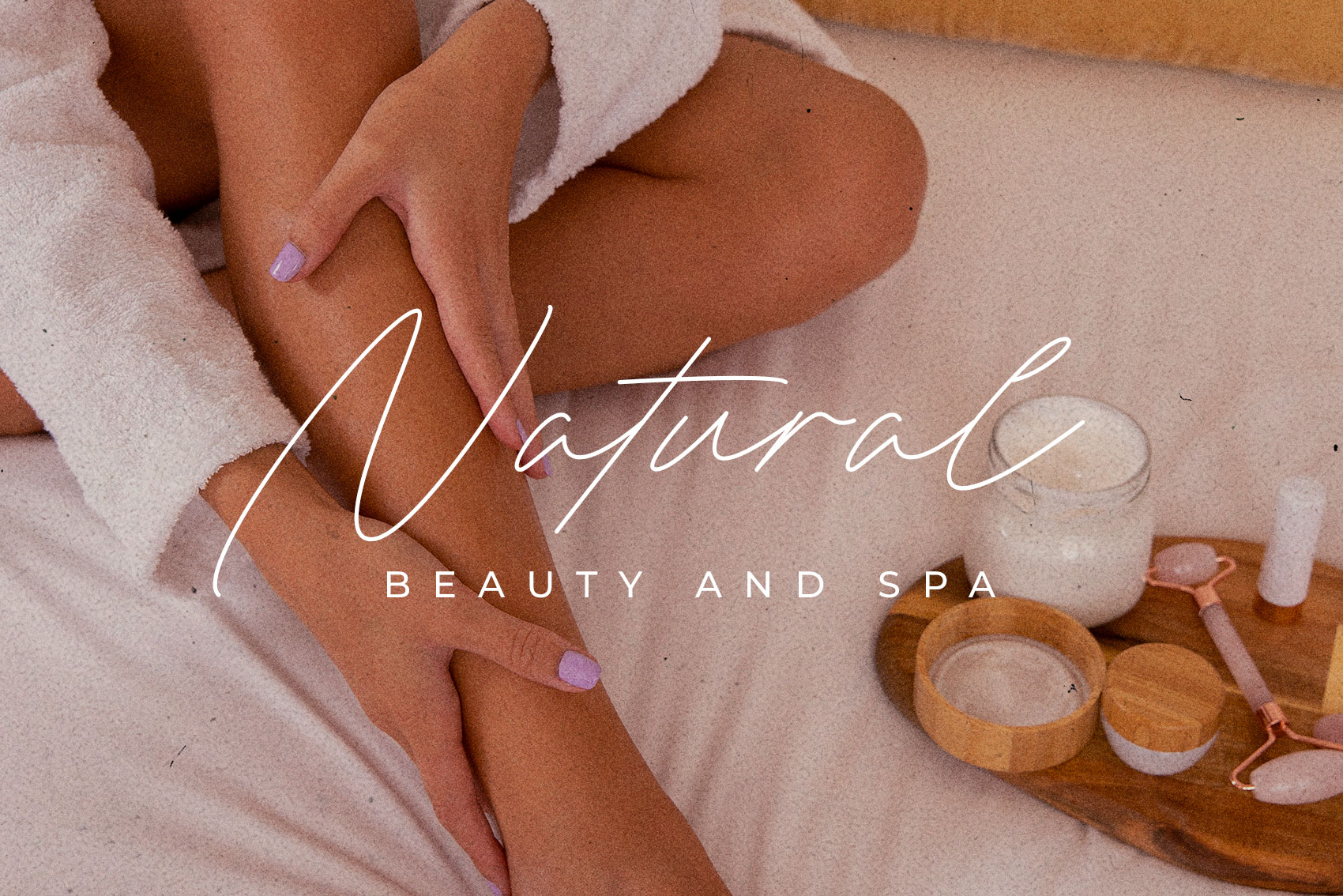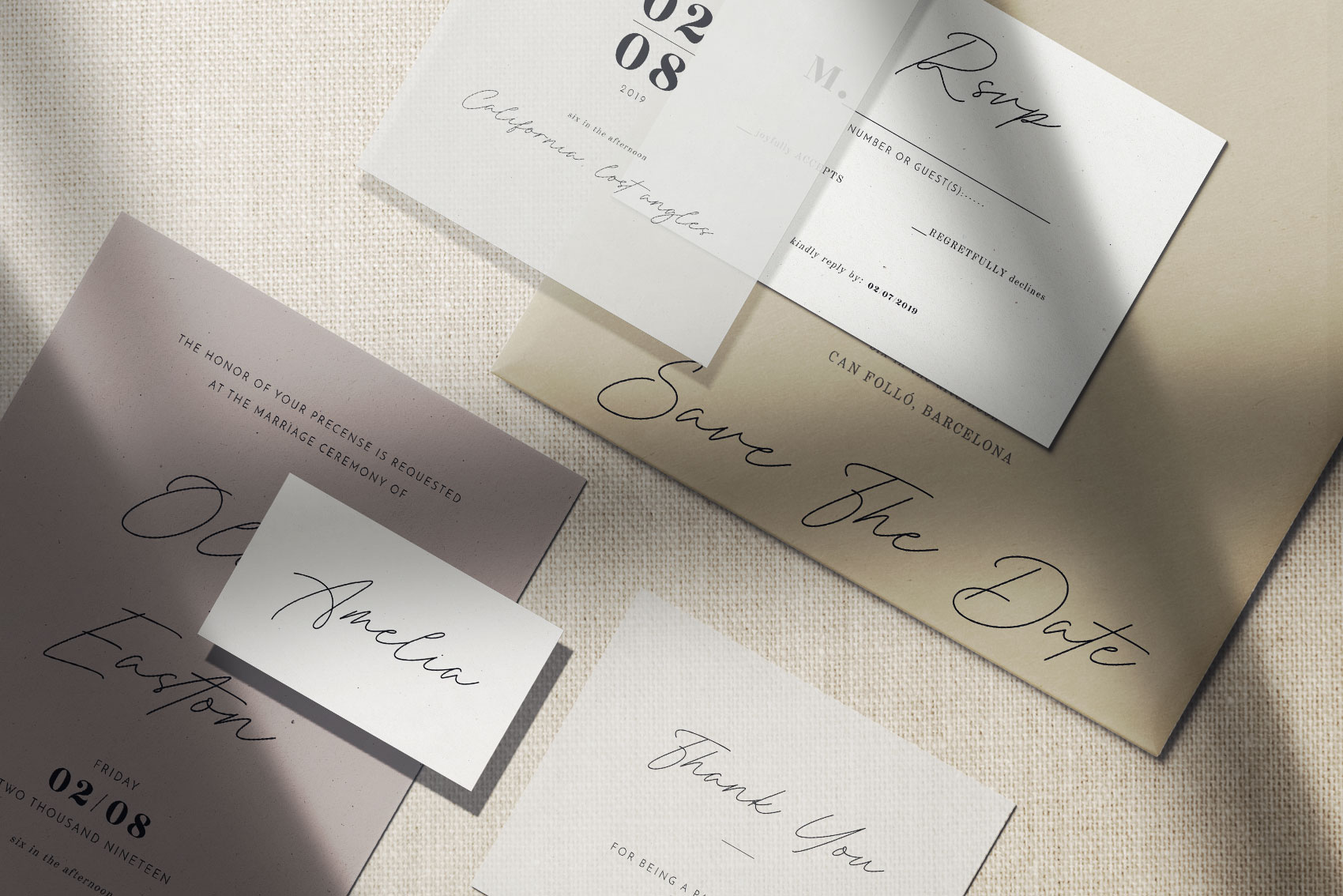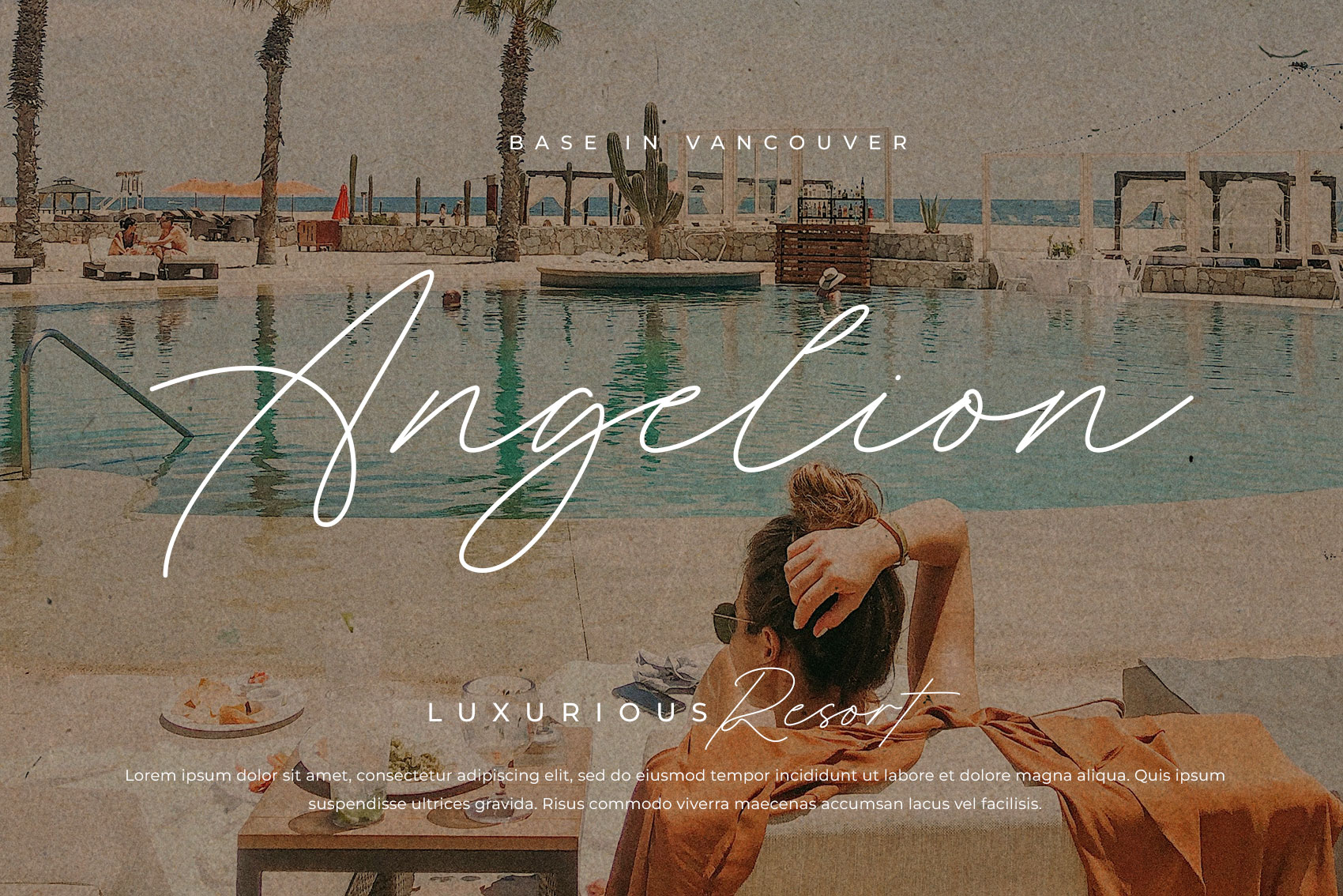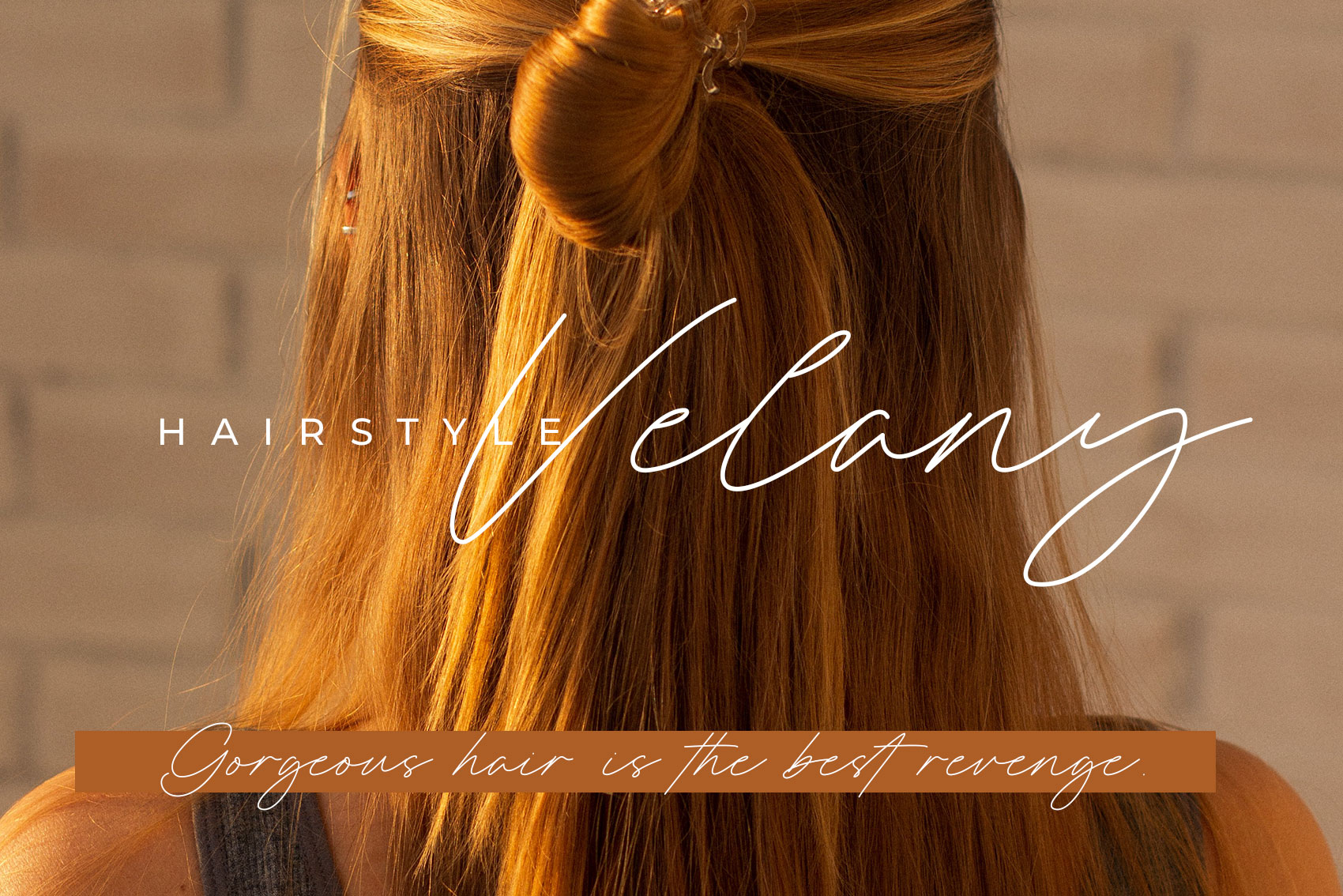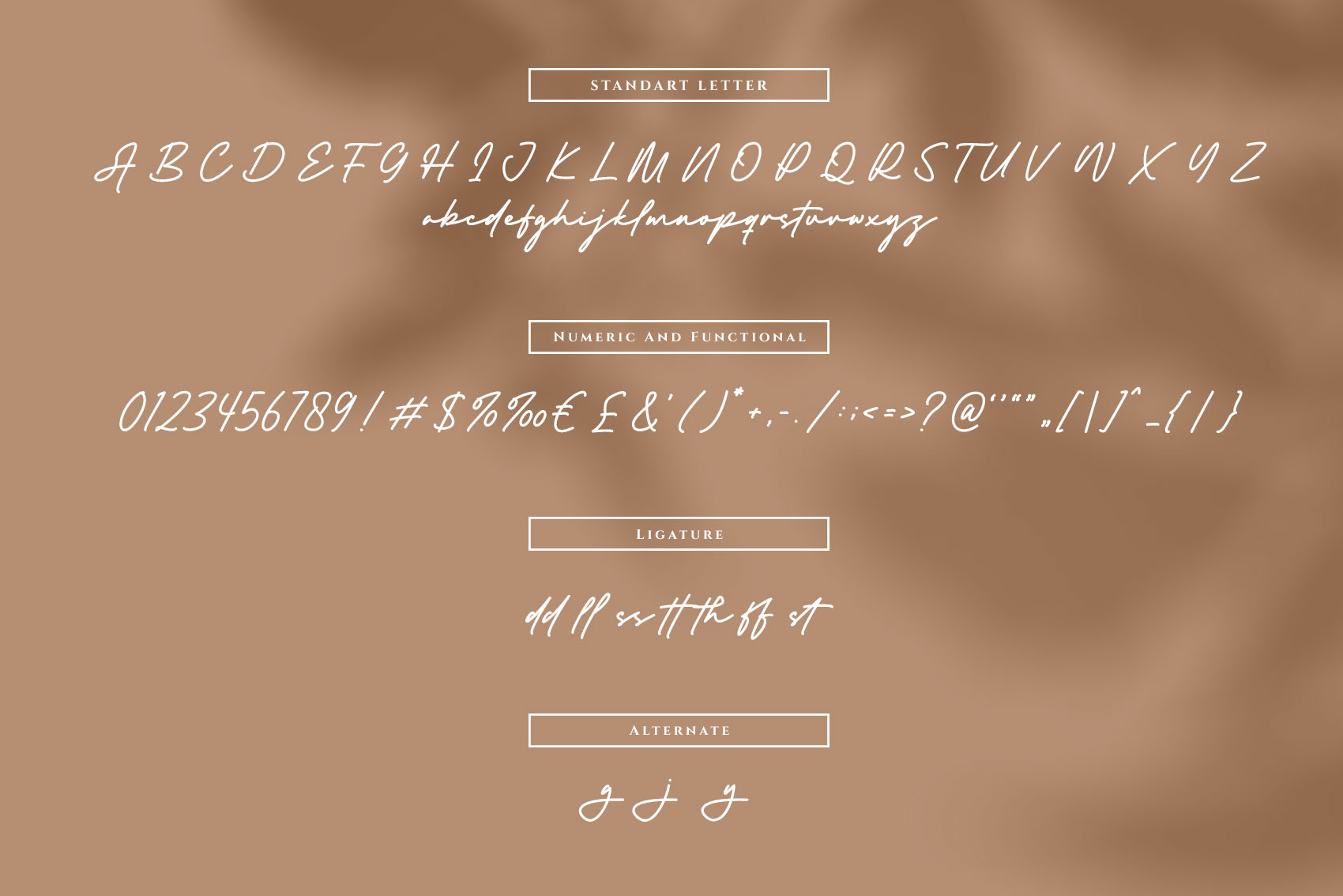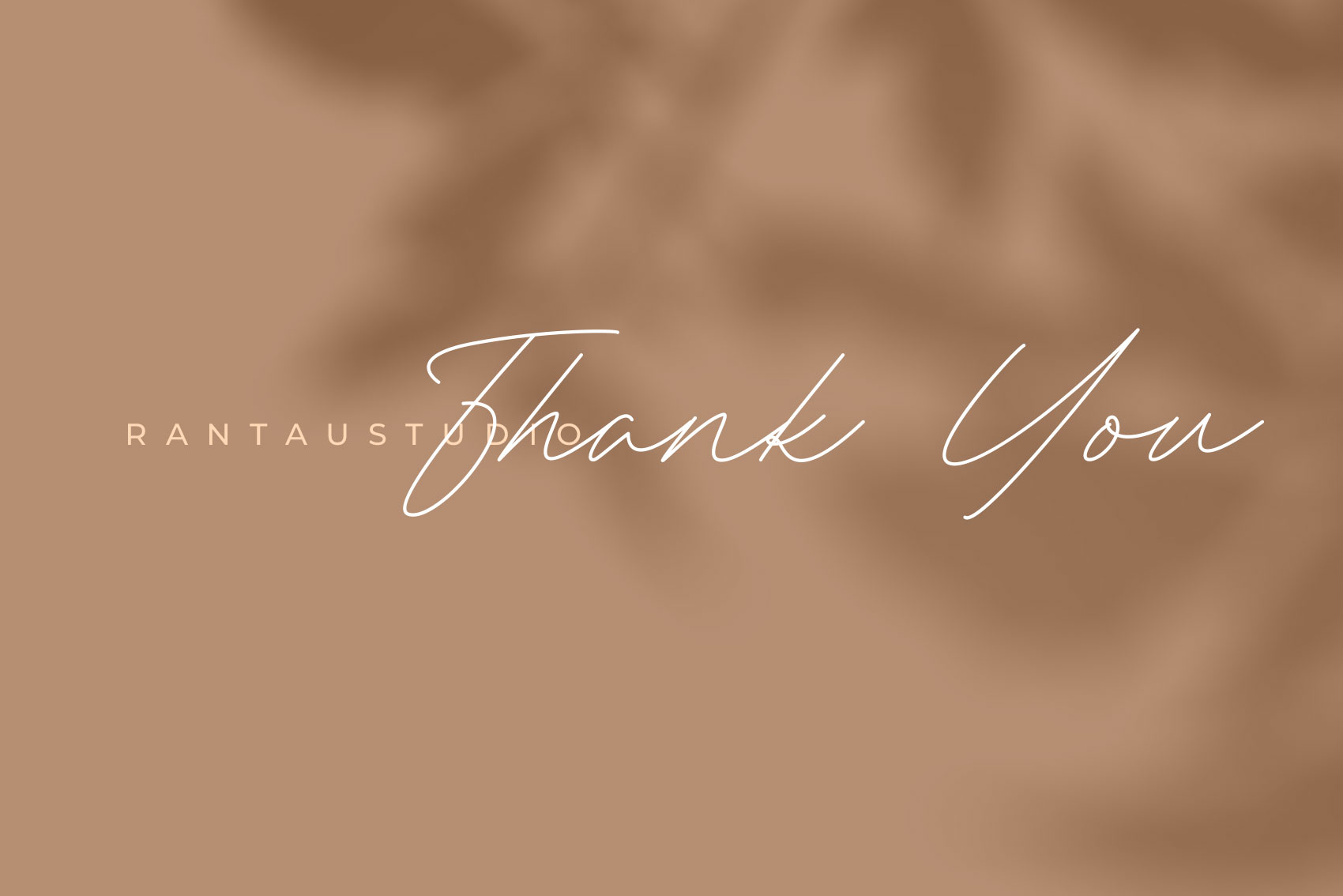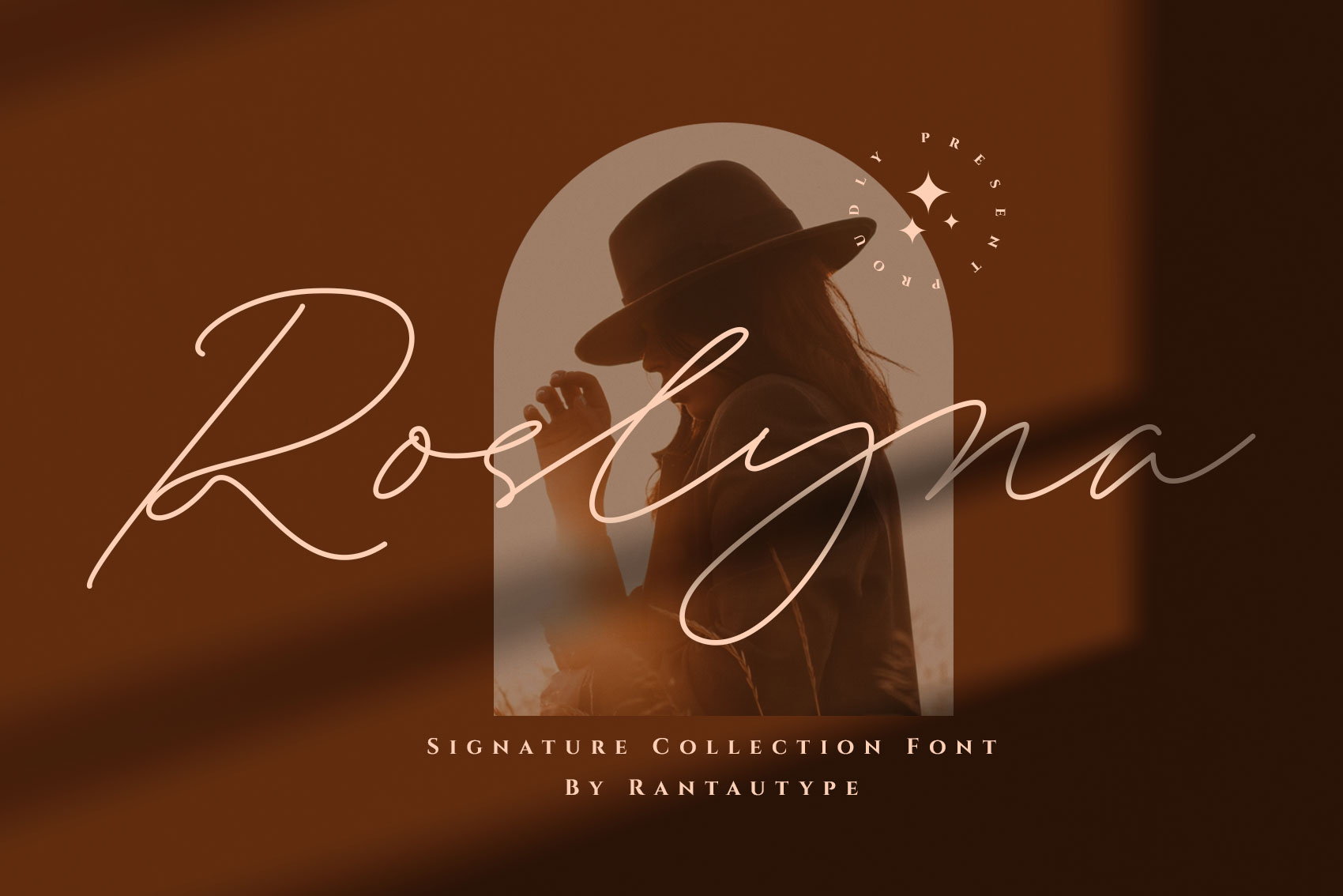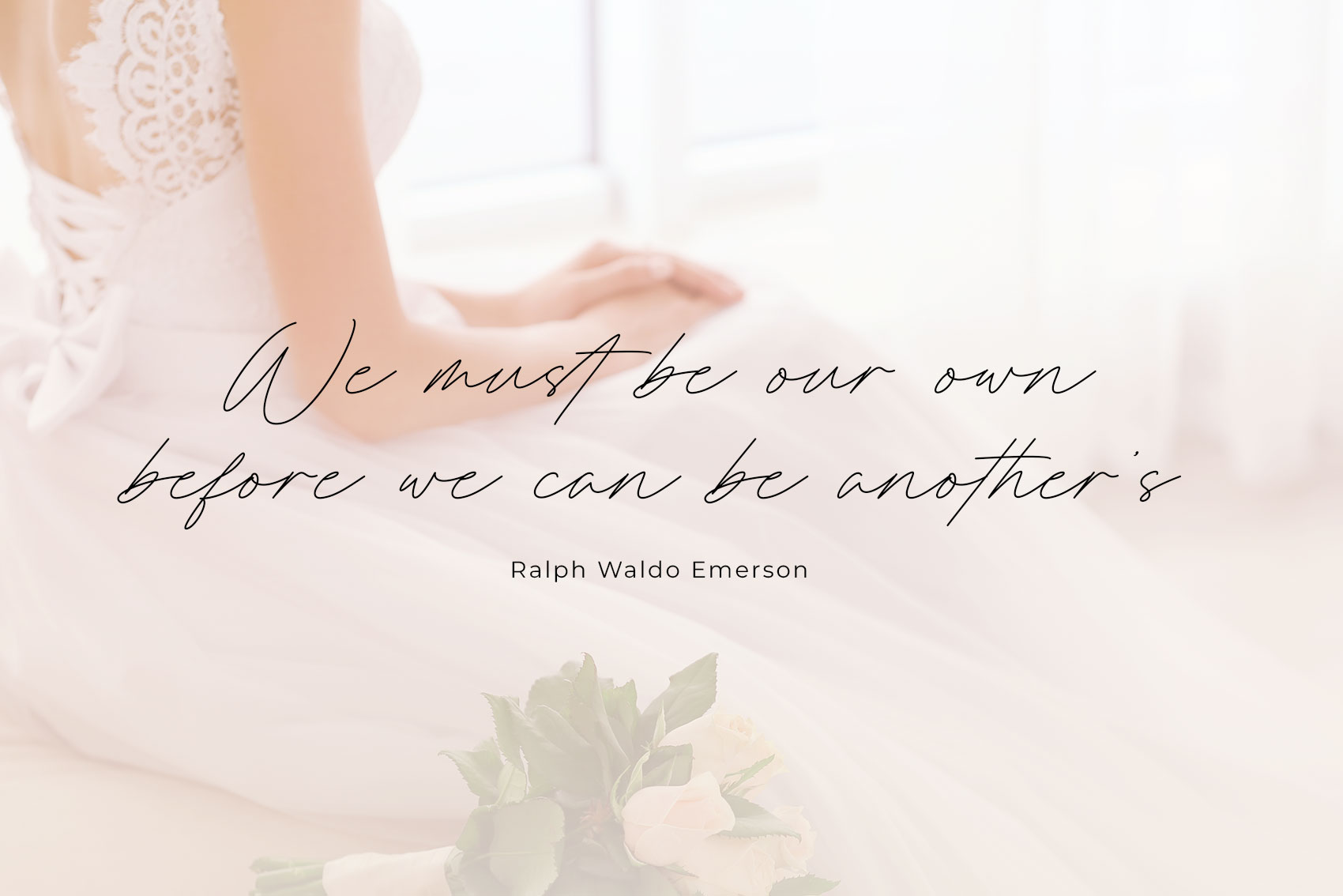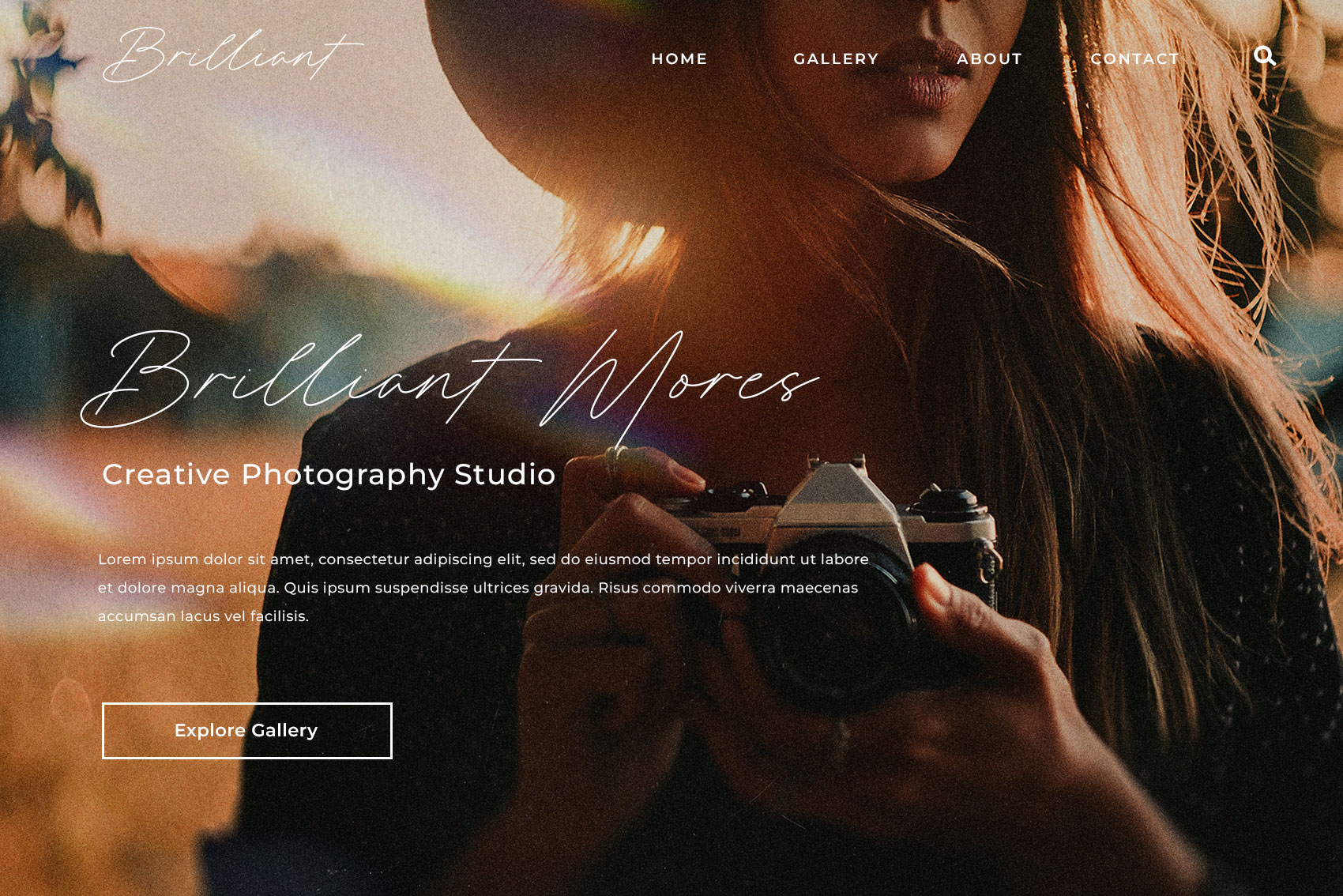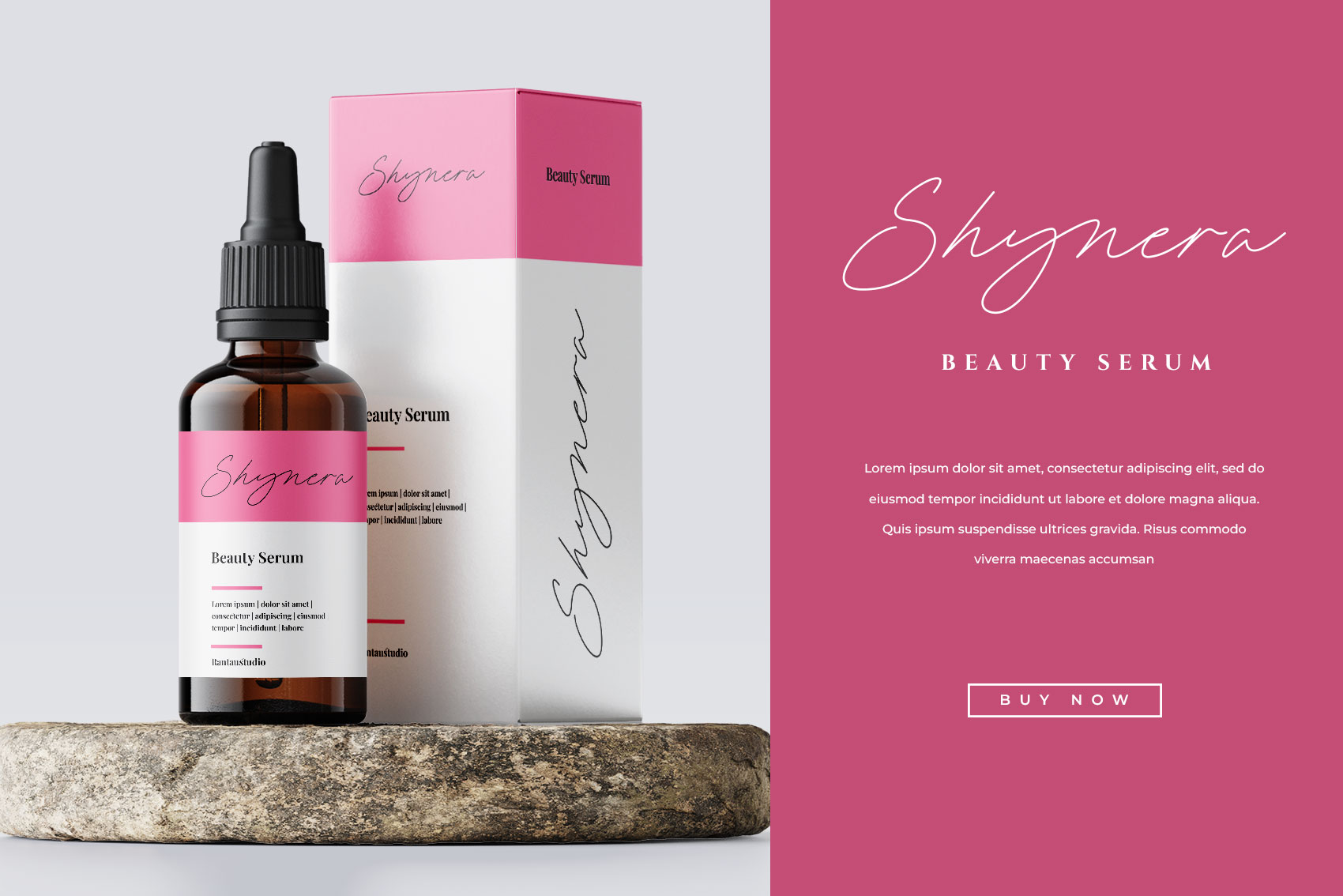
Roslyna Creative Business Font
Roslyna is modern and creative business font which can be interpreted professional with stylish and natural curve. We keep this font looks modern, minimalist, elegant, readable, stylish, catchy and easy to use. Roslyna come with ligature, alternate and multilingual accent support.
Roslyna is a beautiful choice for any creative endeavor, chic, lifestyle design such as logos, title, watermark on photography, cover, branding, display and magazine, wedding event, quotes, album cover, business card, corporate, business project and many other design project. Roslyna here to make your work stand out!!